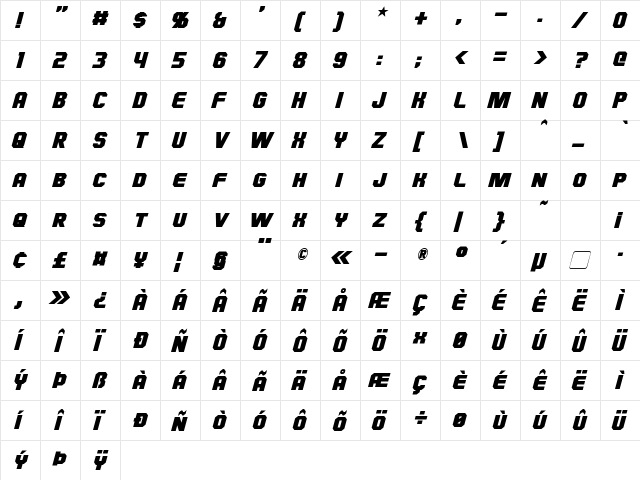
Hauser Italic
| Designer | Neale Davidson |
Design Context for Hauser Typeface
Hauser takes a measured approach to typography — its balanced proportions and neutral character make it a reliable workhorse for both digital and print work. The dynamic lean of this cut emphasises speed and emphasis in any layout.
Pro Tip: Try Hauser for annotation and caption copy alongside an upright companion — the contrast in angle creates a dynamic but ordered typographic system.